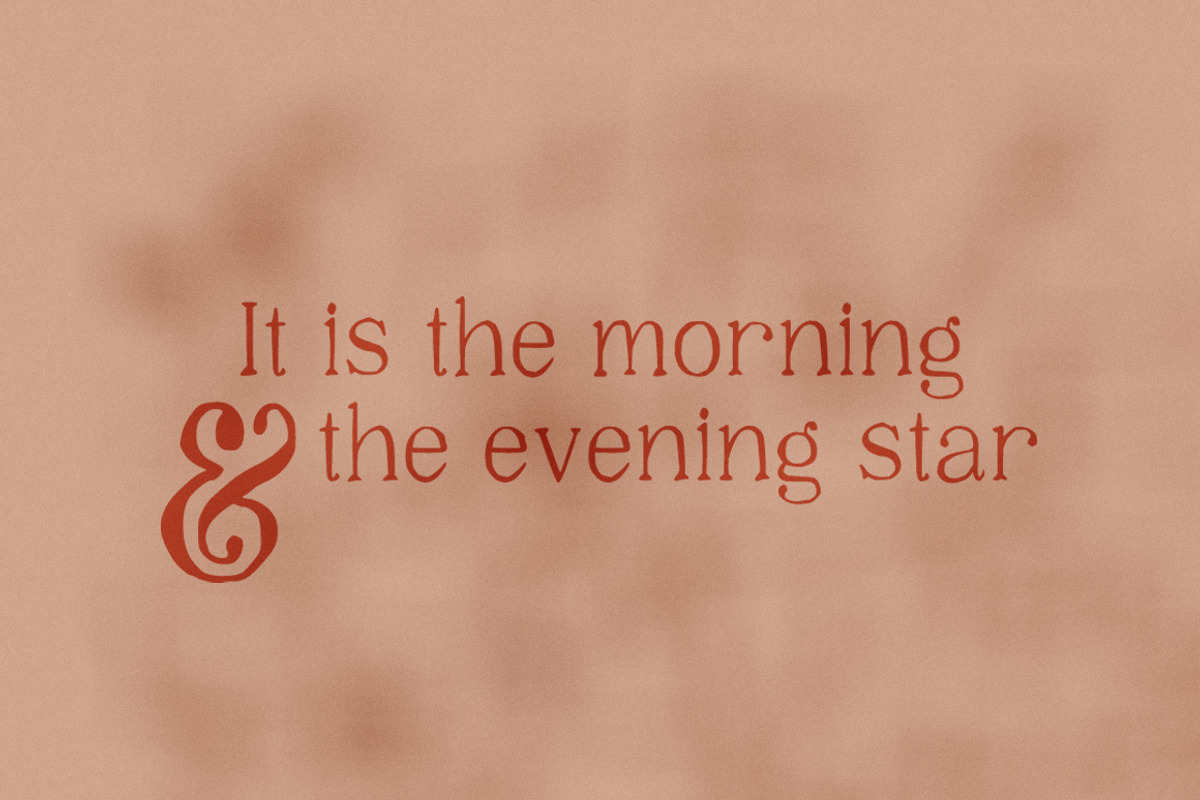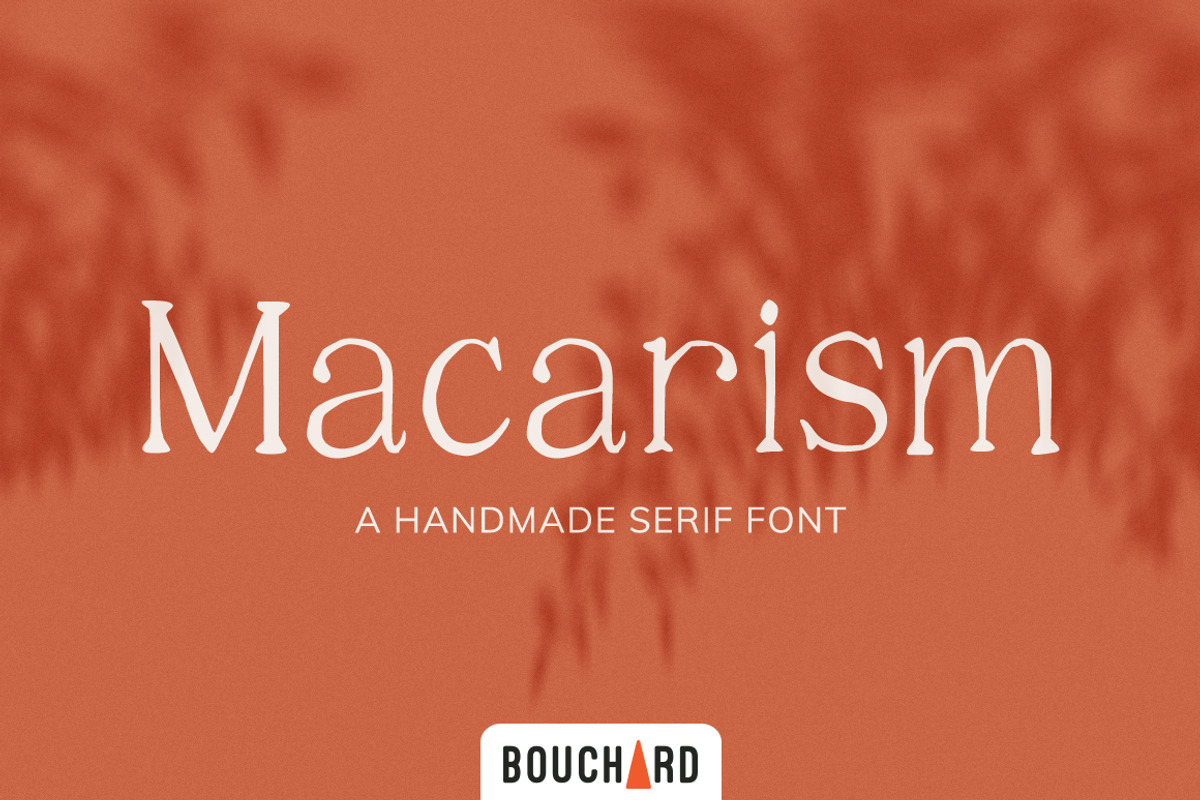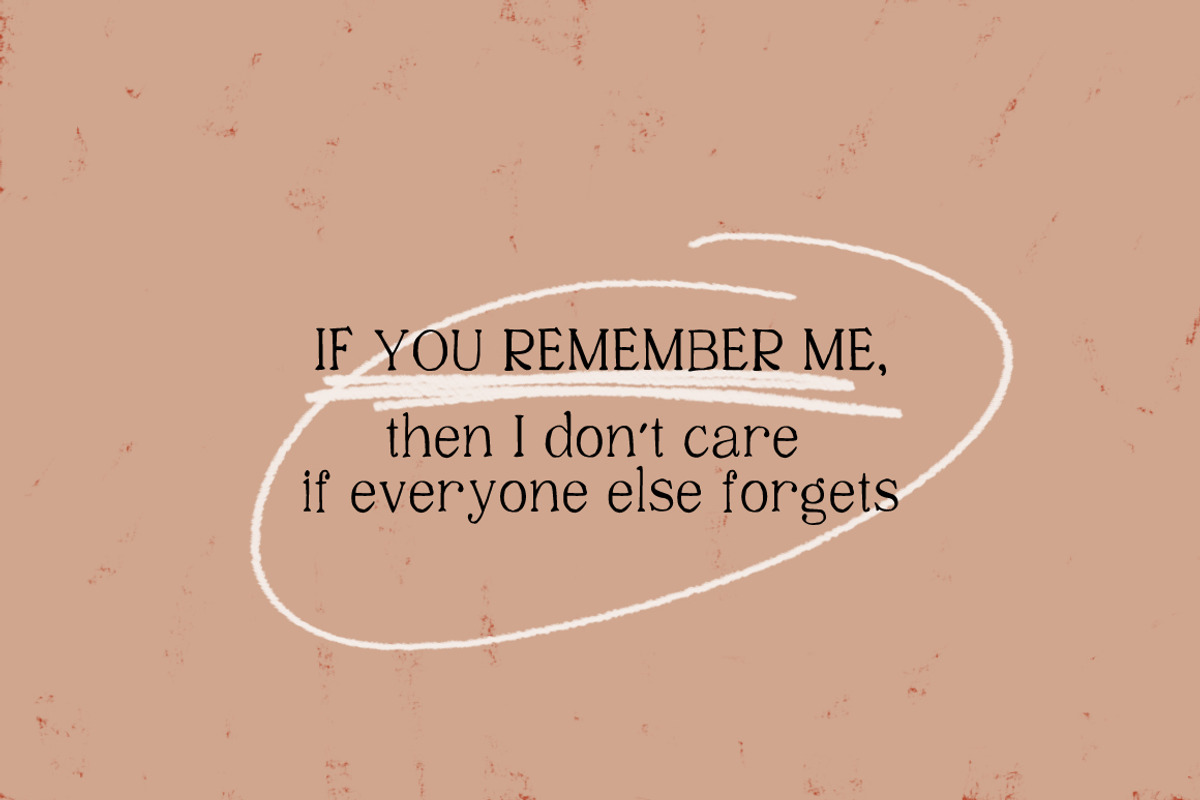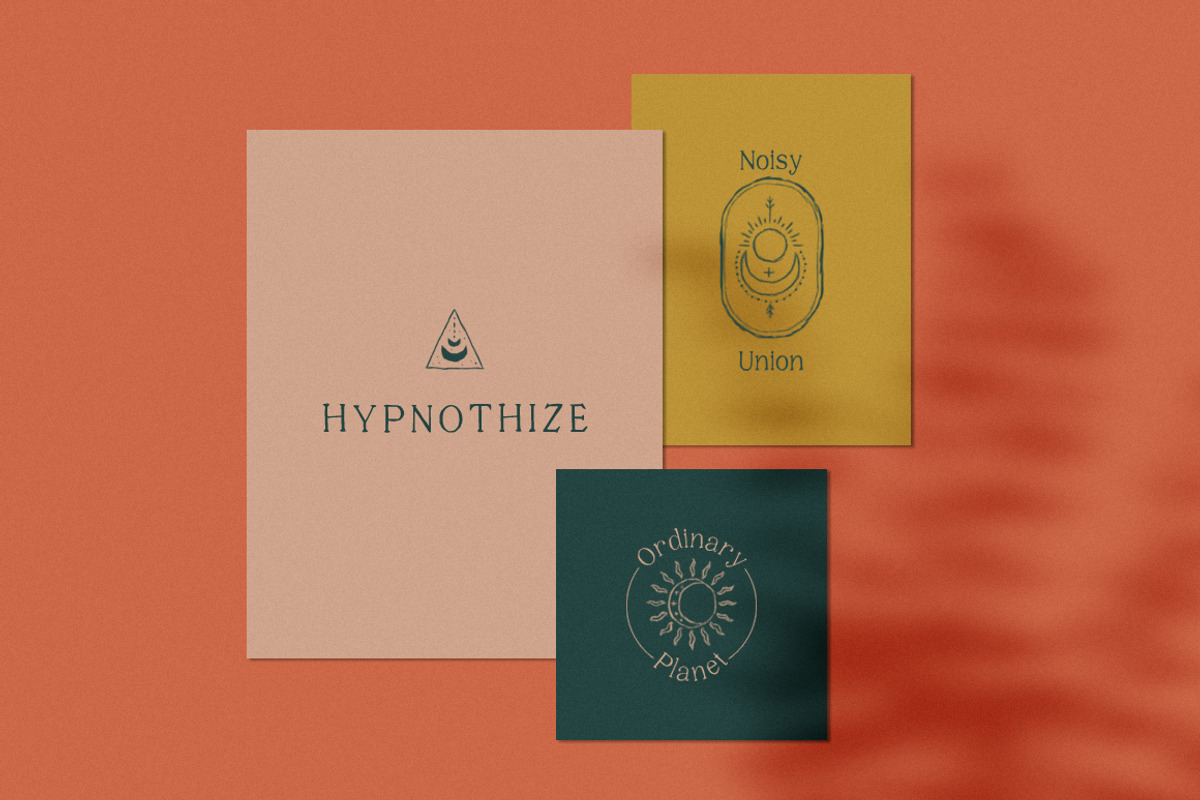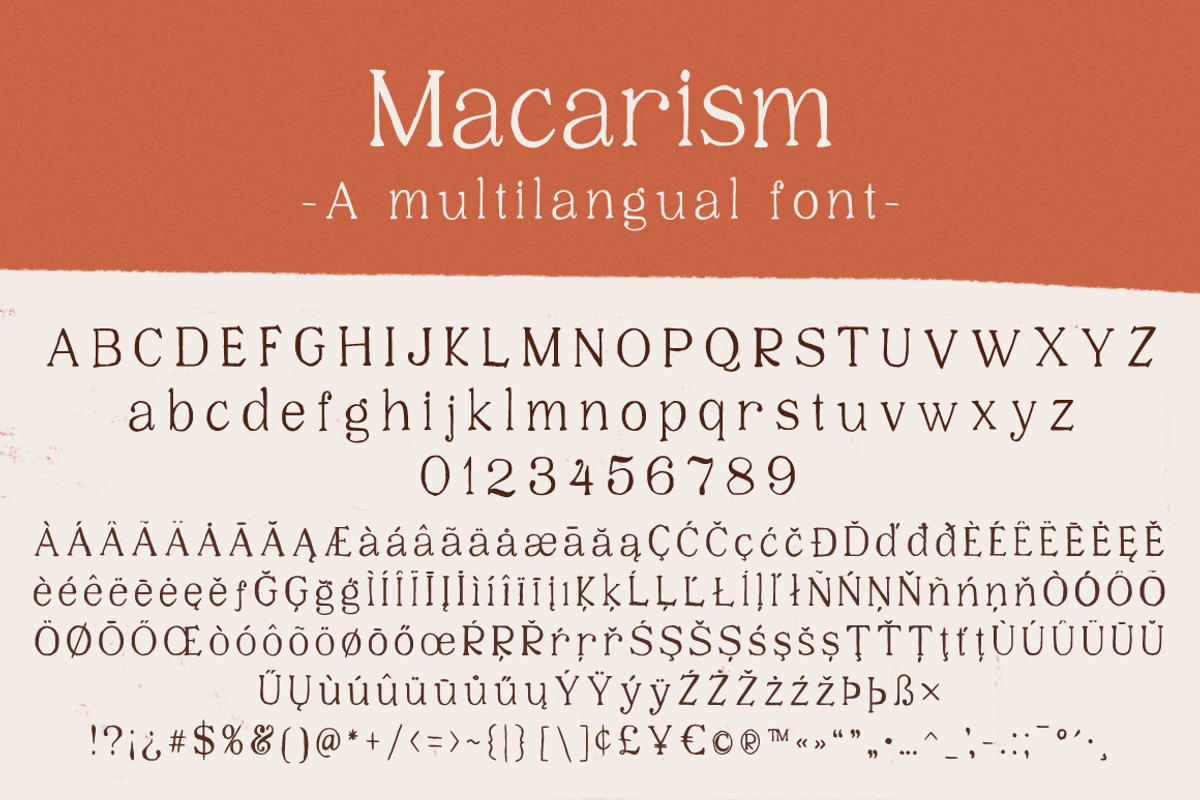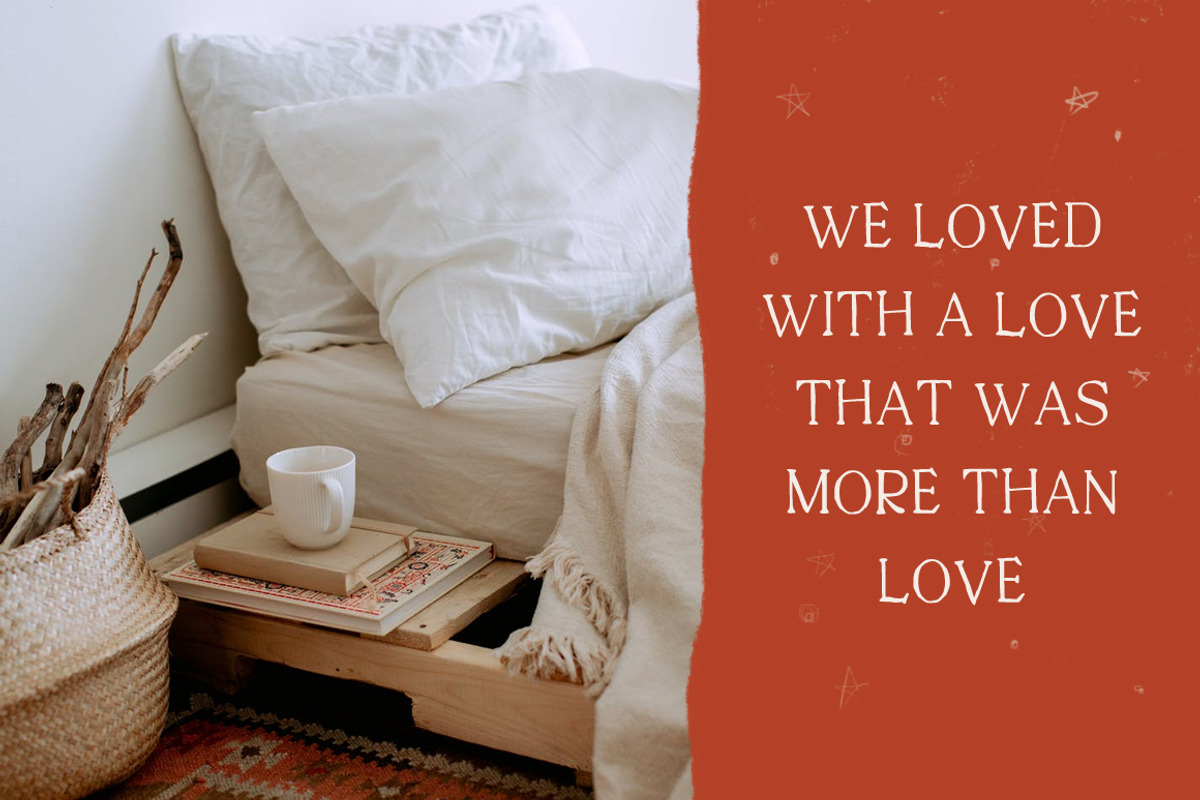
Macarism - A Handmade Serif Font
Macarism is a handwritten display font that comes in uppercase and lower case and includes accents, numbers and punctuation.
Perfect for logo designs, packaging, book covers or any other designs that benefit from dainty serif headings.